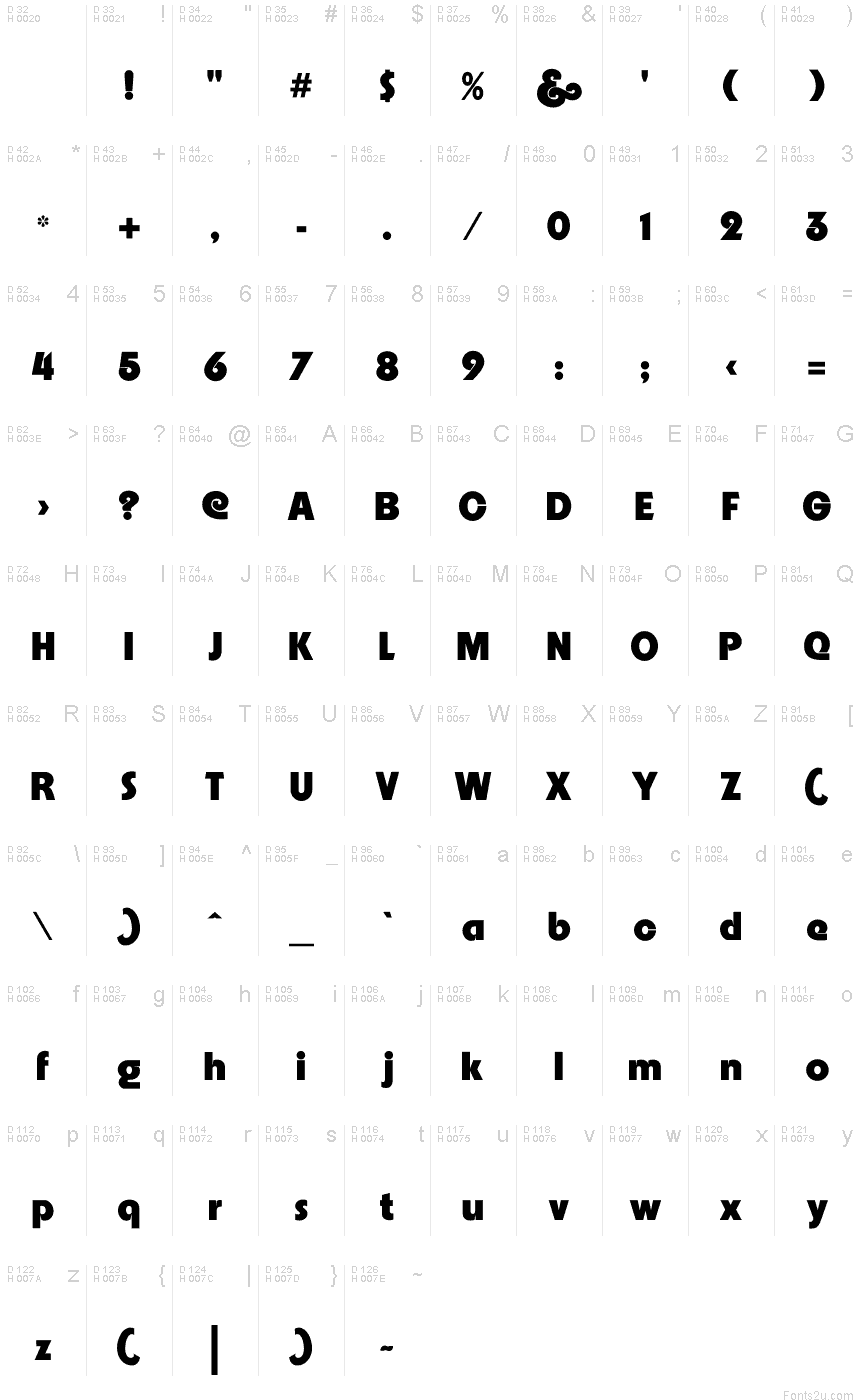
Embrionic85 Bold is a free ultra-heavy sans serif with a broad, tightly packed silhouette. Its blunt capitals and rounded lowercase forms share nearly uniform strokes, but the small openings keep the lettering dense and forceful. The weight is the point.
High-impact poster design is its strongest setting, especially for sports events and club nights. Album covers and streetwear graphics also suit the compressed spacing and oversized shapes, which turn a few words into a solid band of type. Against cropped photography or flat geometric artwork, the lettering can function almost like a graphic bar, linking text and image through its broad silhouette.